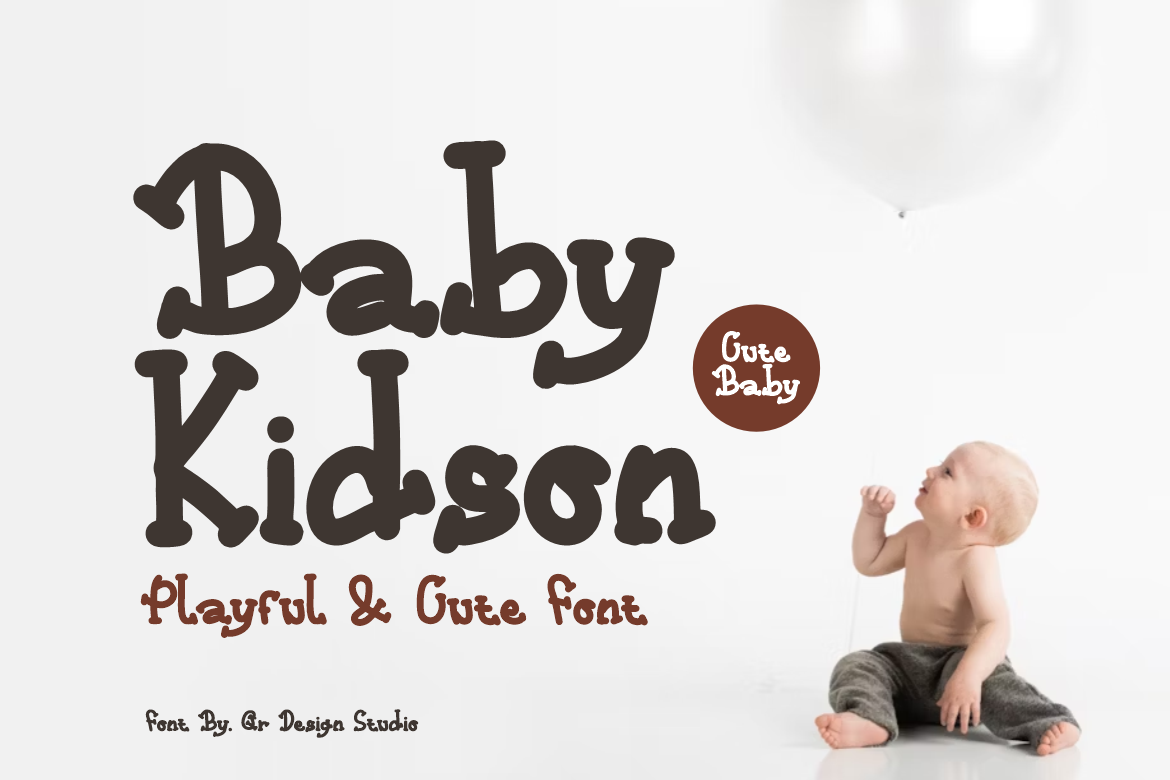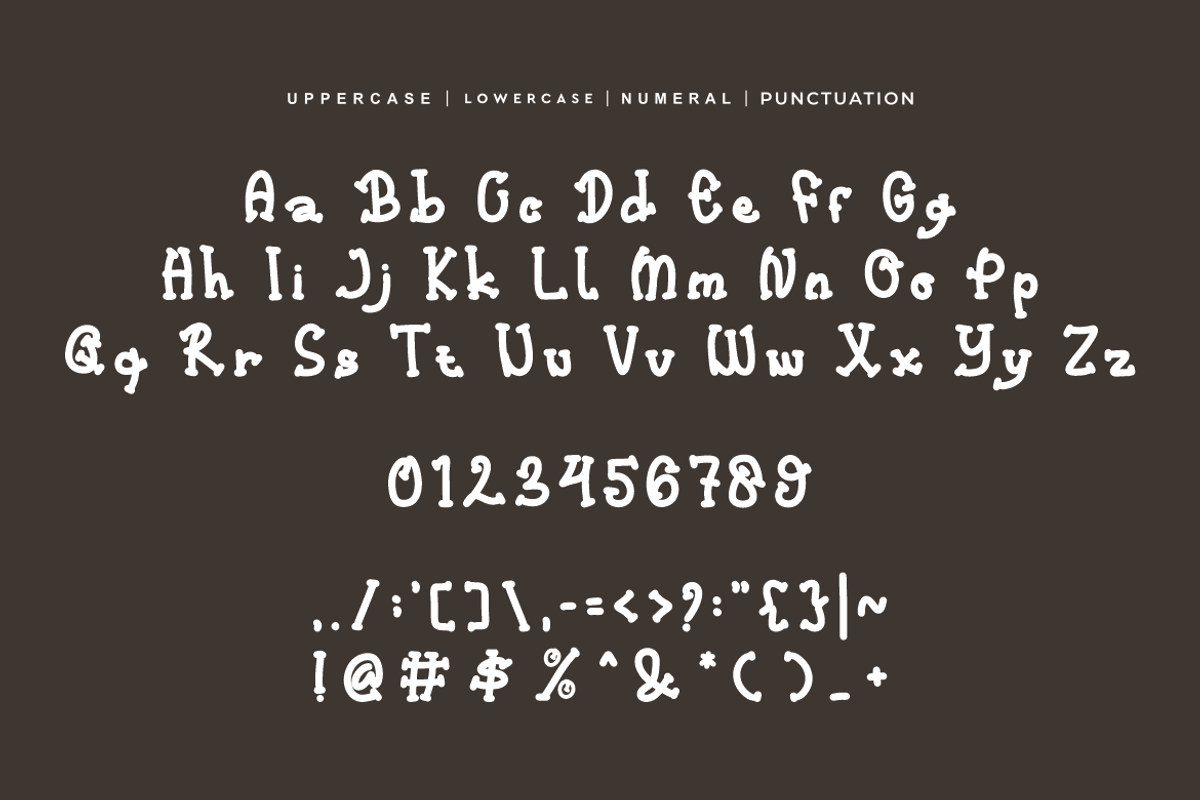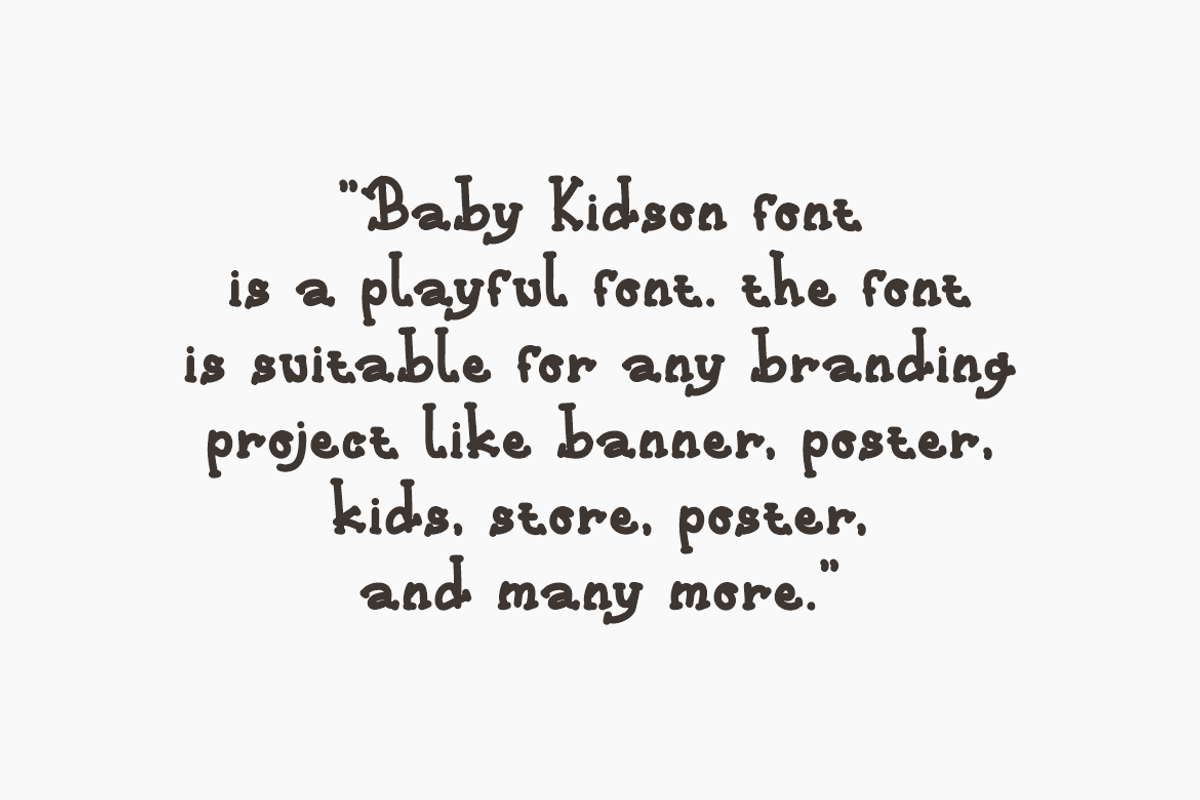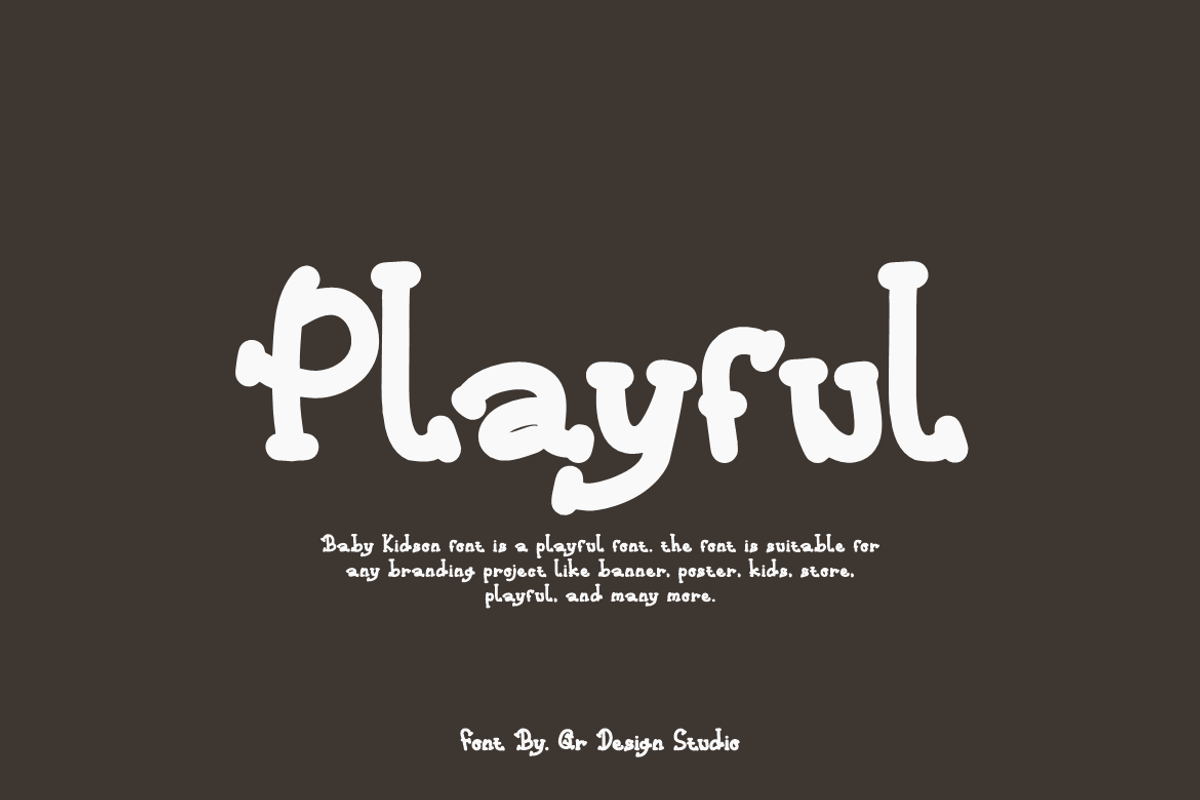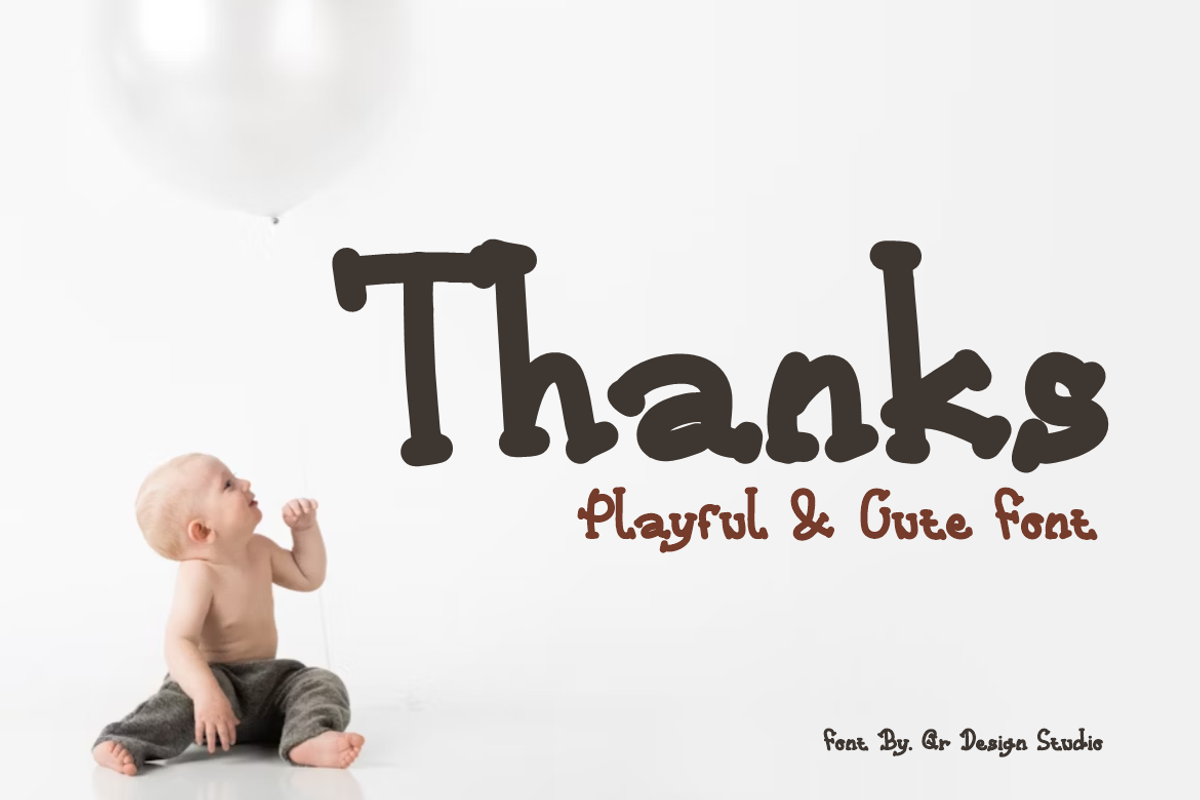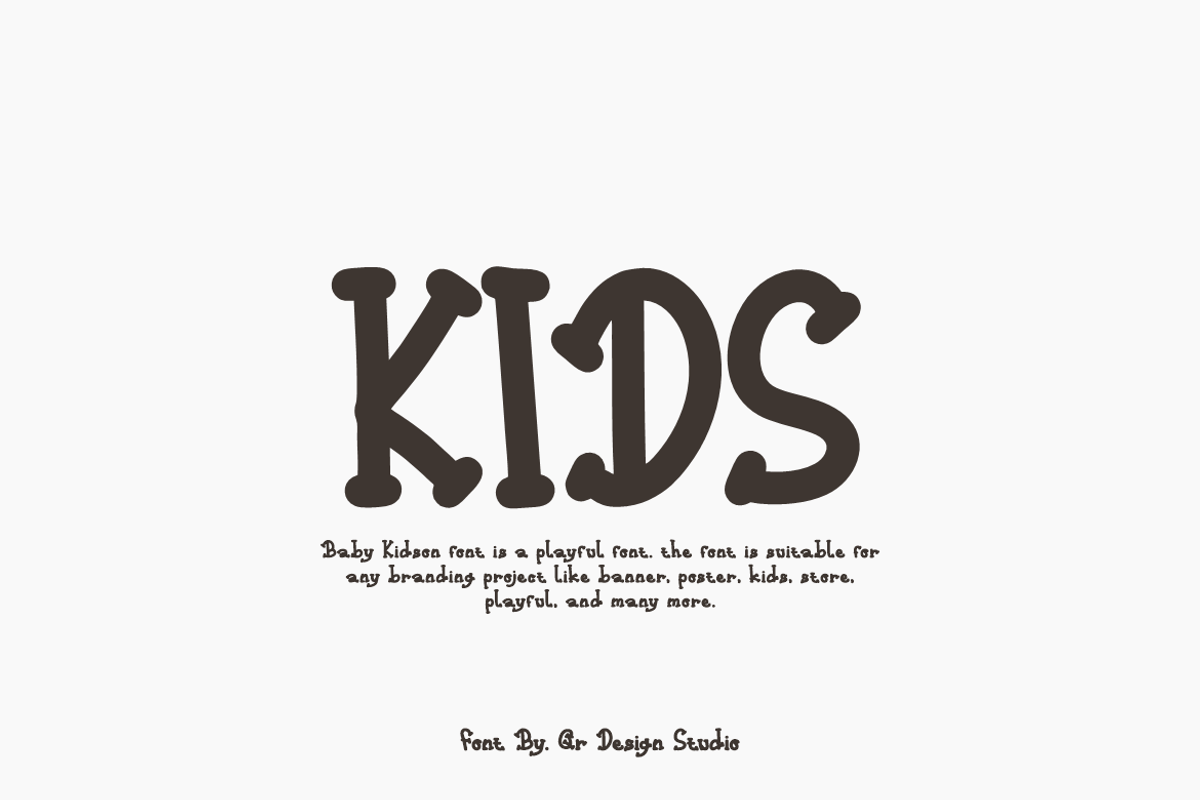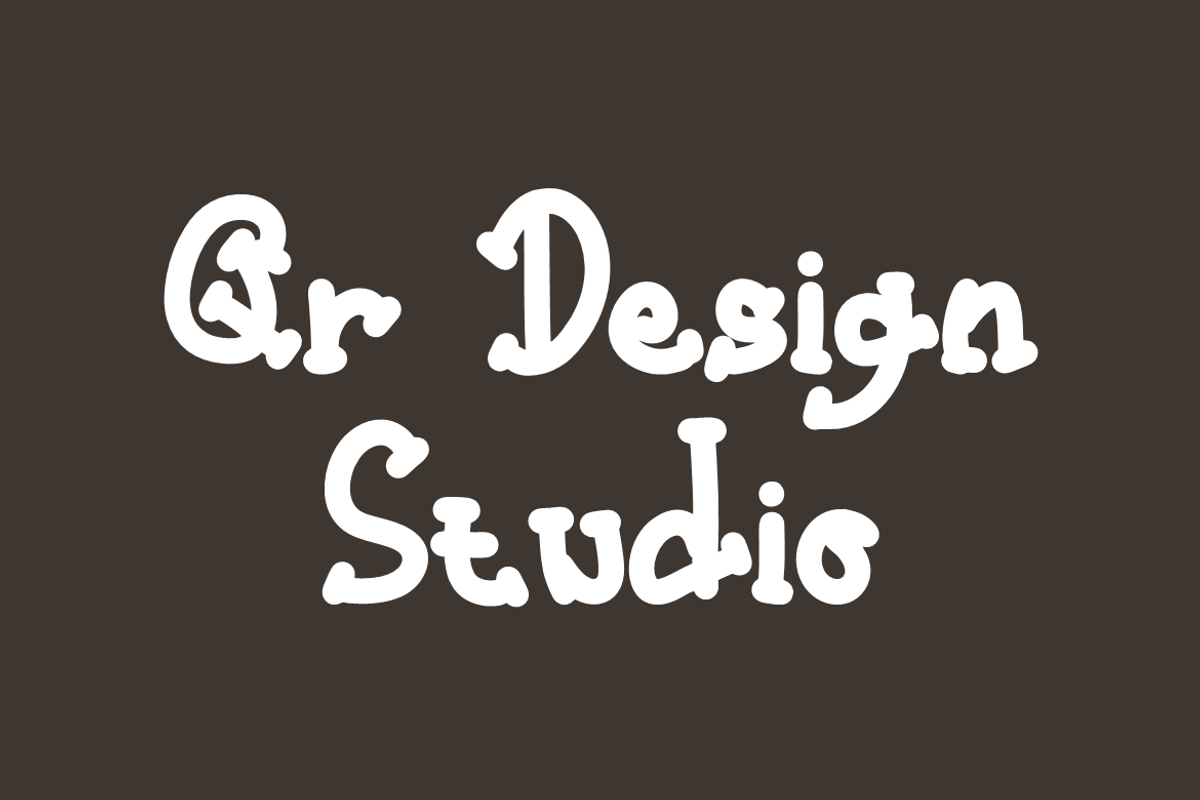
Baby Kidson - Funny Font
Baby Kidson Font is a funny and authentic display font. The font is suitable for any branding project like poster, logo, kids, and many more. Outstanding in a wide range of contexts.